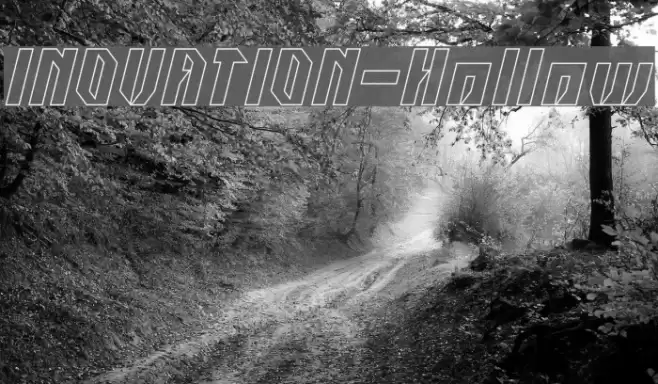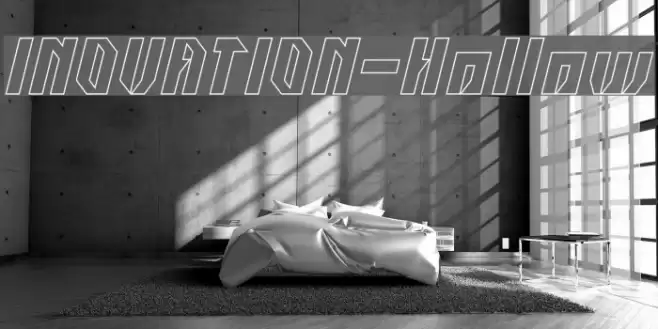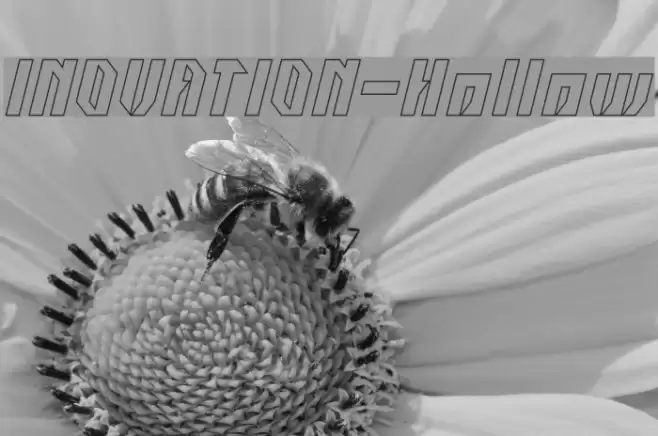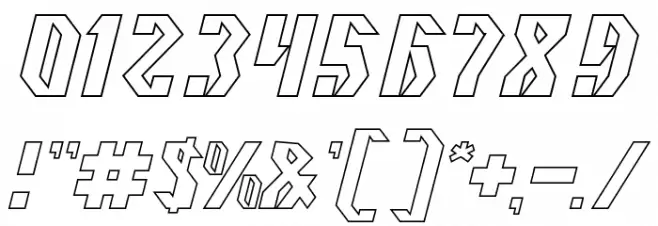
INOVATION-Hollow Font
INOVATION-Hollow Description
This font features a unique hollow design with a geometric and angular style. The characters are outlined, giving them a three-dimensional appearance. The uppercase and lowercase letters maintain a consistent angular theme, with sharp edges and a futuristic look. The numbers and special characters follow the same design principles, ensuring uniformity across the font. The hollow nature of the font makes it ideal for creating a striking visual impact, especially in larger sizes where the intricate details can be fully appreciated.
A hollow, angular font with a geometric and futuristic style from Uncategorized fonts.
- Proposed Projects: Ideal for modern branding, tech-related projects, futuristic posters, and digital artwork.